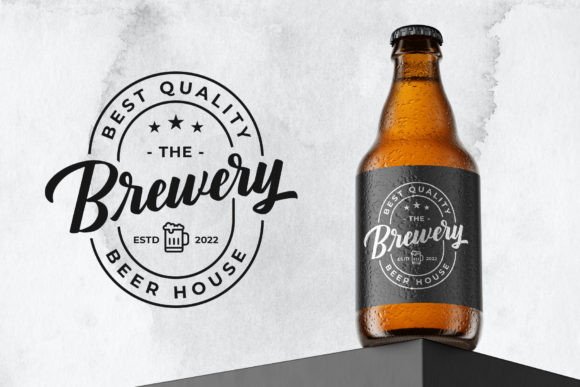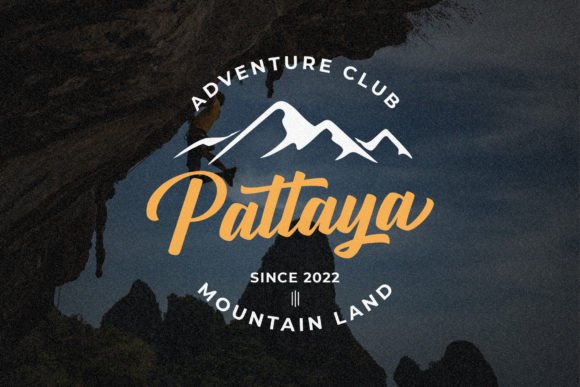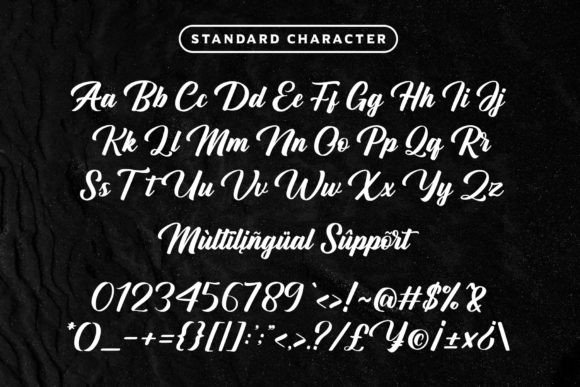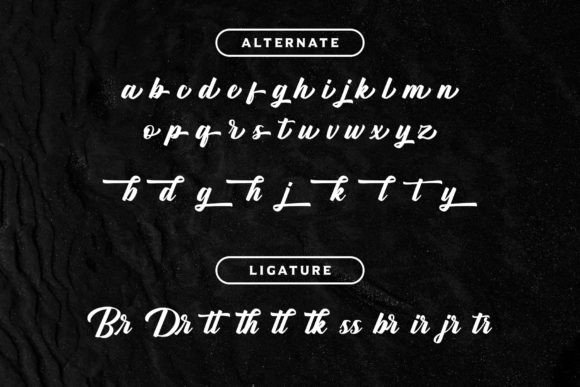
About The Dragonick Font
**The Dragonick: A Gorgeous and Bold Handwritten Font**
**The Dragonick** is a striking and bold handwritten font designed to impart a stylish touch to your headlines and logotype projects. This font carries an aura of strength, confidence, and dynamism, adding a substantial dose of nostalgic character to your designs.
**The Dragonick** stands out with its bold and beautifully crafted letterforms. Each character exudes a sense of boldness and style, making it a perfect choice for projects that require a strong and confident appearance.
This font’s ability to convey strength and character makes it suitable for a wide range of applications. Whether you’re working on headlines, logos, branding, posters, or any other creative project, **The Dragonick** injects a sense of power and nostalgia into your work.
In headlines and logos, this font ensures that your message or brand stands out with a bold and confident presence, leaving a memorable impression on your audience.
For posters and branding, **The Dragonick** adds a layer of style and character, helping your designs communicate a sense of boldness and uniqueness.
In conclusion, **The Dragonick** is more than just a font; it’s a design asset that brings boldness and nostalgia to your creative projects. Whether you’re designing for print or digital, choose **The Dragonick** to infuse your work with its unique and confident charm. Embrace its bold appearance, and let your creativity shine with strength and character.